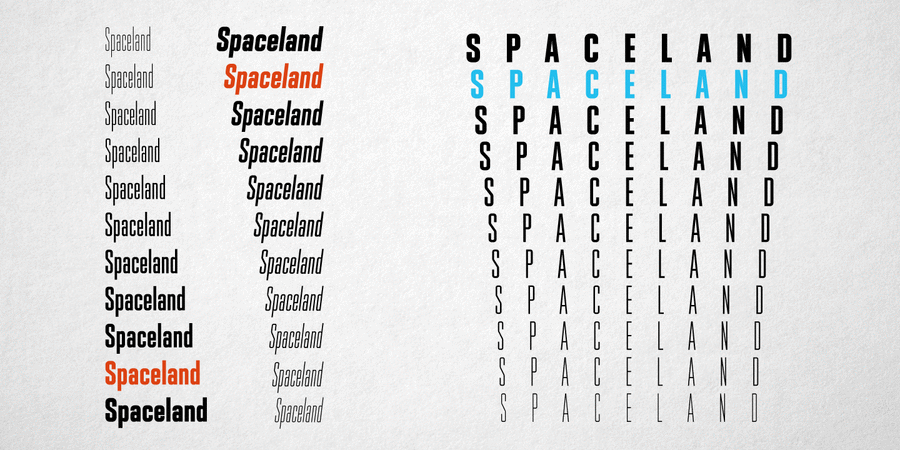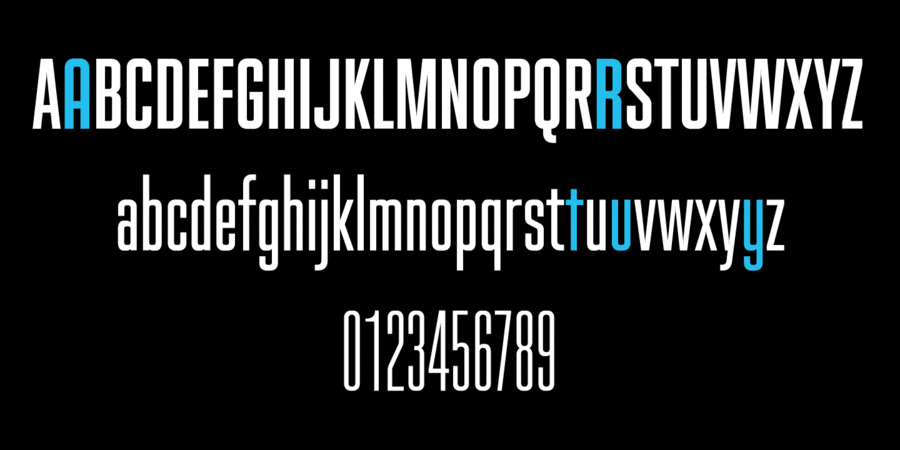
About Spaceland is a narrow display font family with constant counter width and gradually growing stroke over 11 weights with matching obliques. Spaceland is a perfect choice for designs that require extra narrow but legible letters, such as movie posters, health warnings, bold titles etc. It has rich language support, including Cyrillic, as well as numerous OpenType features to customize your design. The typeface was designed by Oleh Lishchuk in 2019.
Associations for font family SpacelandTypeface personality and character:
thin, slim, flat, static, tall, serious, urban, monotone, narrow, technically, high-quality, accurate, crisp, modern, schematic, engineering, architectural, compressed, adult, stable, solid, loud, self-assured, notable, ambitious, important, motivating, convincing, robust, practical, economical, urbanistic, cinematic, strong, urgent, persistent, close-fitting, heavy, severe, iron, steel, rectangular, industrial, reputable, sportive, black, powerful, sharp, workman
city, scheme, engineer, device, architecture, cinema, news, skyscraper, retail, store, policy, construction, property, factory, industry, building, sci-fi, space, metallurgy, machine tool, tool, constructor, automation, power station, energy industry, car, game, robot, science, urban studies, technology, hardware, rock n roll, army, power, oil, fuel, mechanical engineering, sport, blockbuster, excavator, workman Typeface associated with age: